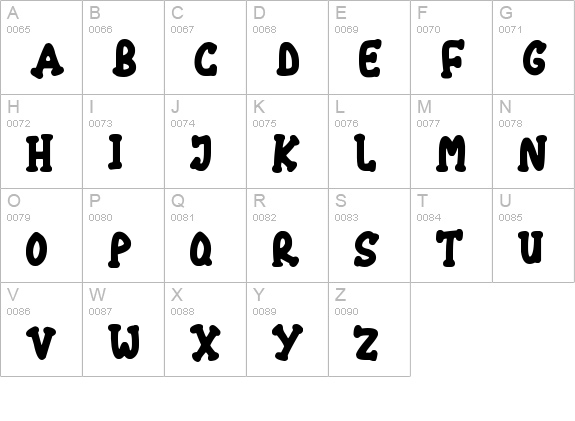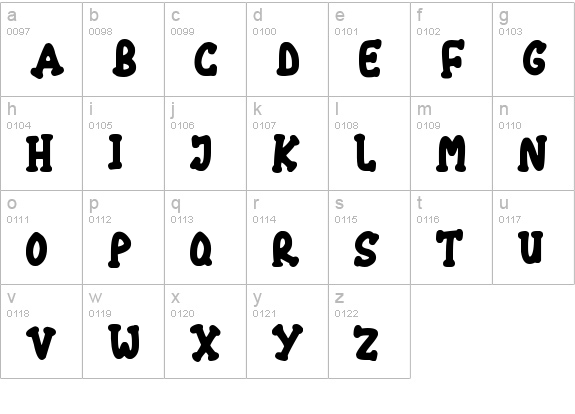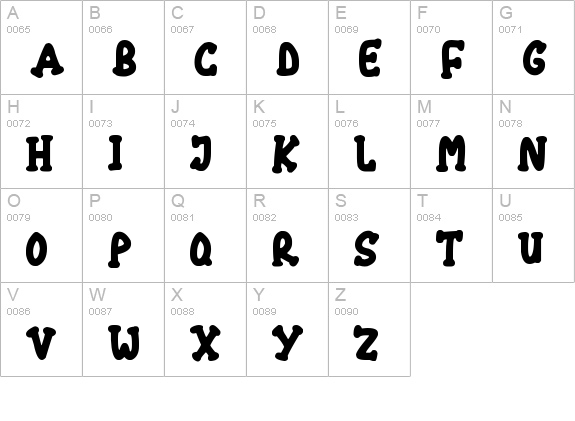
Chubbies font is a fun and quirky typeface that brings a playful touch to any design project. With its chubby and rounded letters, this font exudes a sense of whimsy and charm. Perfect for adding a friendly and lighthearted feel to your creations, Chubbies font is sure to make a statement.